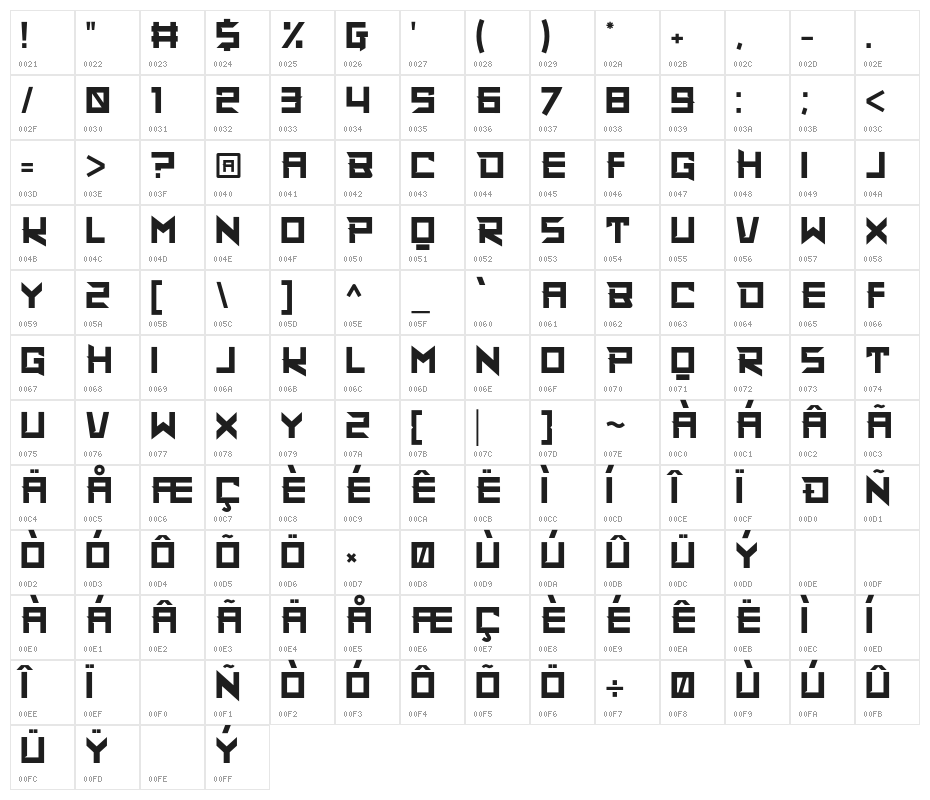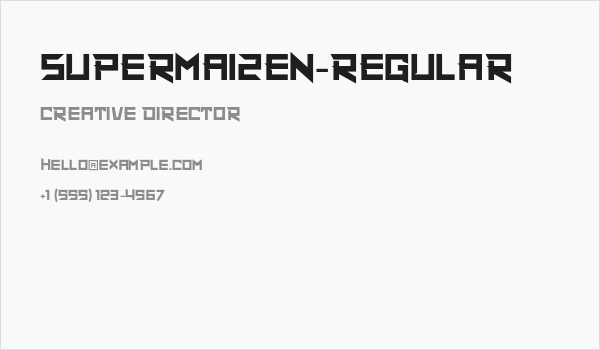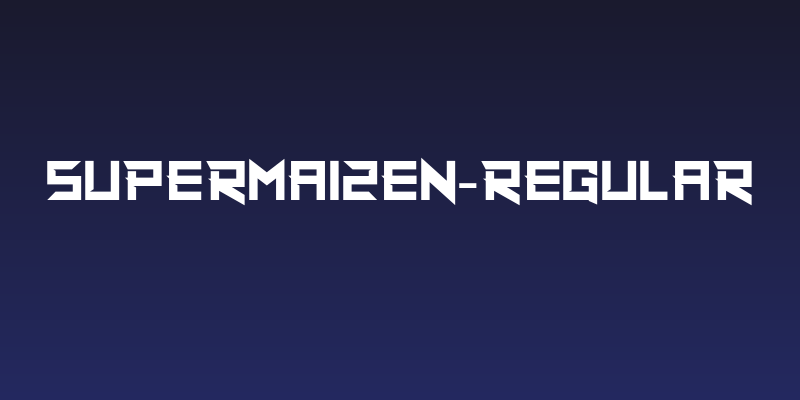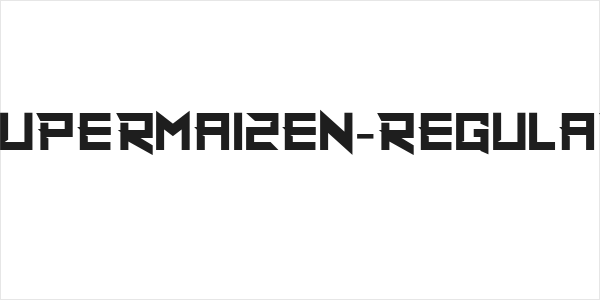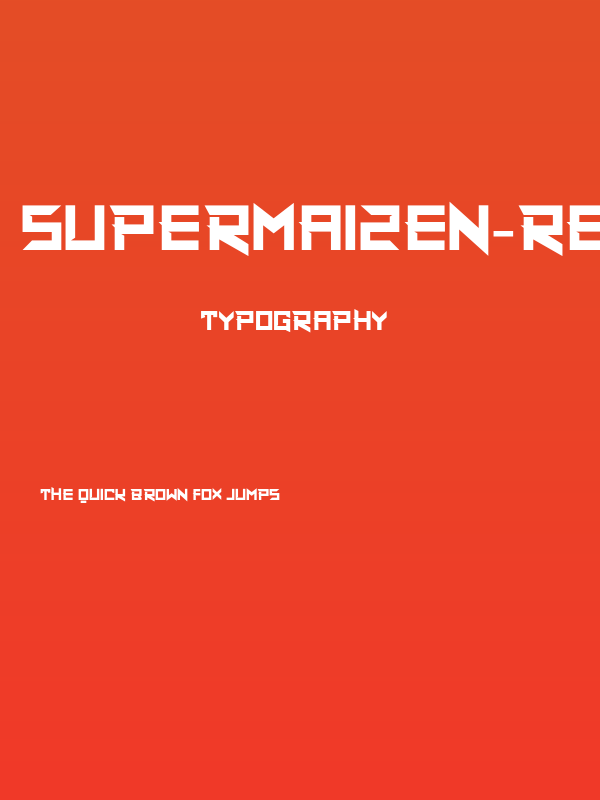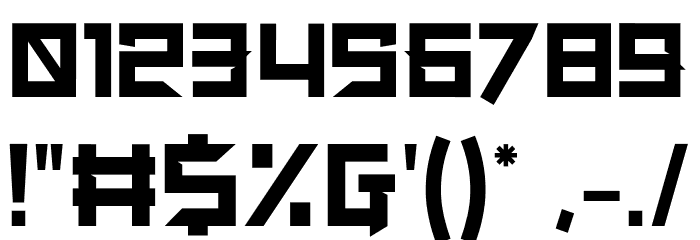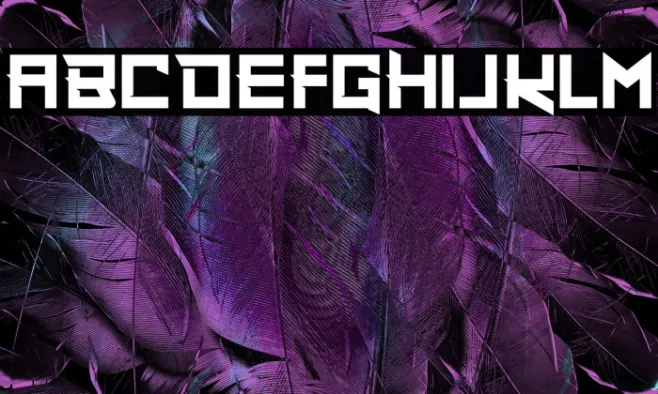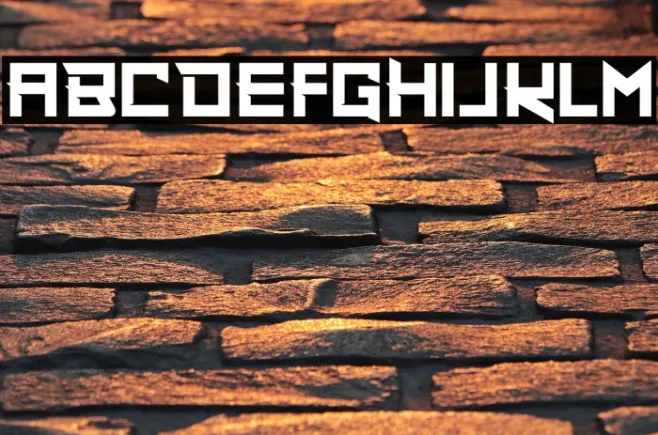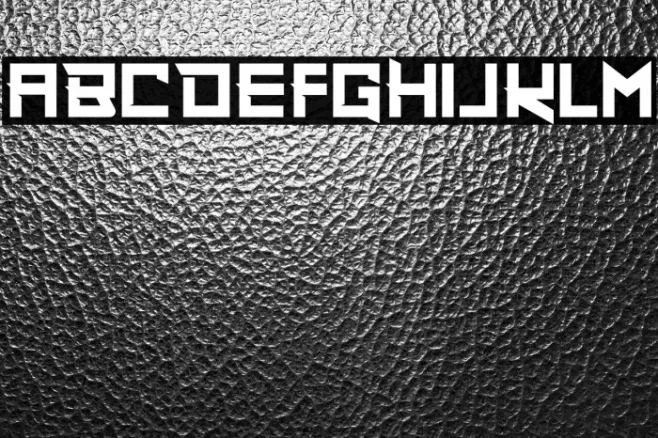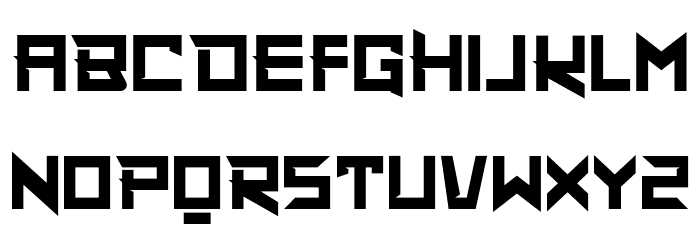
SuperMaizen-Regular Font
SuperMaizen-Regular Description
This font features a bold and geometric design with sharp angles and a futuristic aesthetic. The characters are constructed with a consistent thickness, giving it a strong and impactful presence. The uppercase letters are particularly striking, with unique cuts and edges that add a dynamic feel. The numbers and special characters maintain the same bold style, ensuring uniformity across all glyphs. This font is ideal for projects that require a modern and edgy look, such as technology branding, sports team logos, or video game titles.
| Proposed Projects | Ideal for technology branding, sports team logos, video game titles, and modern advertising. |